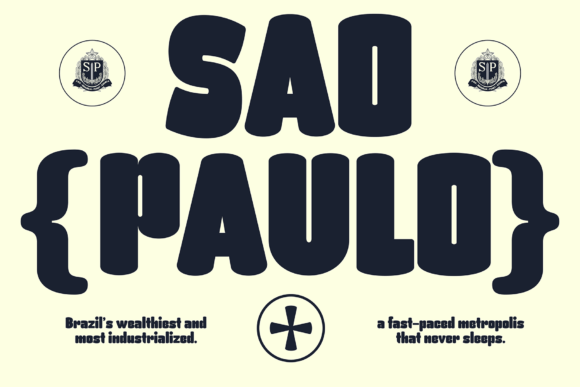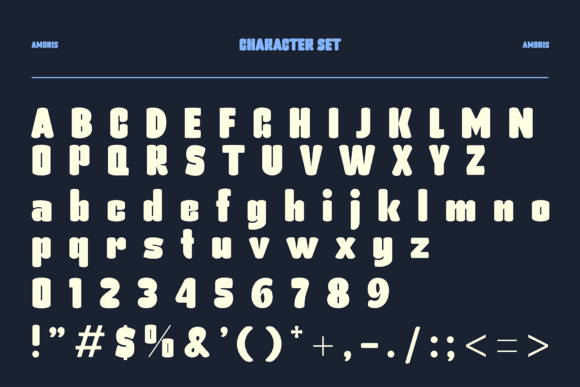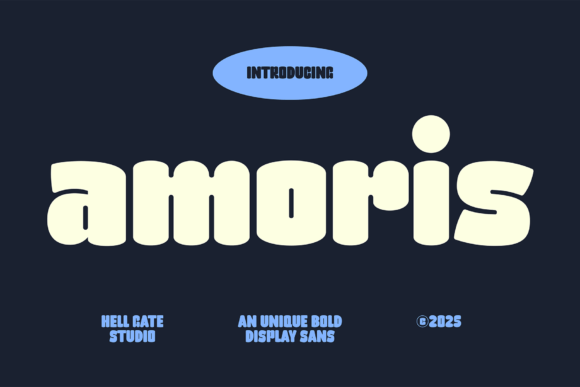
Mesmerize Your Audience with the Amoris Sans-Serif Display Font
In the world of design, fonts play a crucial role in conveying messages, evoking emotions, and creating lasting impressions. Among the numerous fonts available, the Amoris sans-serif display font stands out for its unique blend of elegance and boldness. This stunning font is designed to captivate your audience and elevate your creative projects to new heights.
The Amoris Font: A Perfect Blend of Elegance and Boldness
The Amoris font boasts a standalone, unique, bold sans-serif style that exudes an aura of sophistication and refinement. Its bold, retro touch adds a touch of nostalgia, making it perfect for designers and crafters looking to create eye-catching visual content. Whether you’re working on a branding project, a poster, or a digital advertisement, the Amoris font is sure to make a lasting impression.
User-Friendly Design for Effortless Editing
One of the key features that sets the Amoris font apart is its user-friendly nature. The font is designed to be easily edited, allowing you to experiment with different text and color combinations without any hassle. This facilitates a smooth transition from thought to canvas, enabling you to bring your creative vision to life with ease.
High-Quality Render for Stunning Visuals
The Amoris font features a high-quality render that accentuates the beauty of each curve and line. This ensures that your text looks crisp and clear, even at large sizes, making it perfect for display purposes. Whether you’re creating a billboard, a magazine cover, or a social media graphic, the Amoris font is sure to deliver stunning visuals.
The Amoris font is an excellent choice for designers and crafters looking to add a touch of elegance and boldness to their creative projects. Its versatility makes it suitable for a wide range of applications, including:
- Digital advertisements
- Magazine covers and editorials
- Packaging design
Tips for Using the Amoris Font
To get the most out of the Amoris font, here are some tips to keep in mind:
- Experiment with different text and color combinations to find the perfect look for your project.
- Use the font in combination with other design elements, such as images and graphics, to create visually appealing compositions.
- Take advantage of the font’s bold, retro touch to add a touch of nostalgia to your design.
- Don’t be afraid to push the font to its limits – the Amoris font is designed to make a statement!
In conclusion, the Amoris sans-serif display font is a stunning addition to any designer’s or crafter’s toolkit. Its unique blend of elegance and boldness, combined with its user-friendly design and high-quality render, make it perfect for creating eye-catching visual content. With its Open Type Format (OTF) file and seamless compatibility with different platforms, the Amoris font is an excellent choice for anyone looking to elevate their creative projects to new heights.